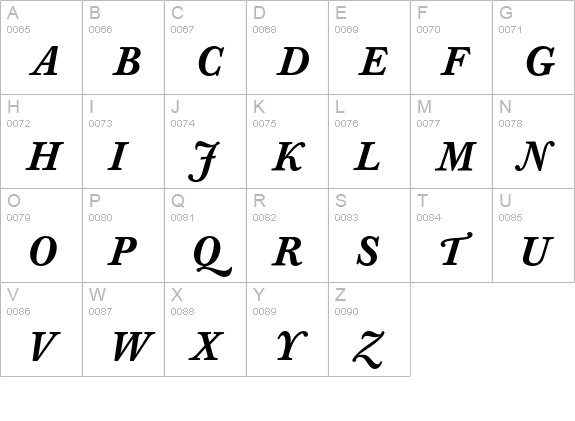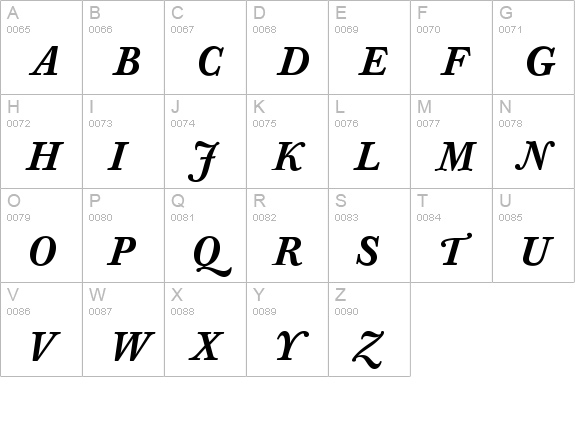
Baskerville Book kursiv halbfett m Medziff Font Details
Baskerville Book kursiv halbfett m Medziff is a comfortable, highly readable variant in the Baskerville typeface family \xE2\x80\x94 well suited to long-form body text, articles, and editorial content.
Baskerville Book kursiv halbfett m Medziff font is a stunning typeface that exudes elegance and sophistication. With its bold yet graceful design, this font is perfect for adding a touch of style to any project. The italicized and semi-bold weight of this font gives it a unique flair that is sure to make your text stand out. What's even better is that this font is available for free download at FontsMarket.com. So, whether you're working on a creative project, designing a website, or creating eye-catching graphics, you can easily access this beautiful font without any cost. Don't miss out on the opportunity to enhance your designs with the Baskerville Book kursiv halbfett m Medziff font - get it for free today!